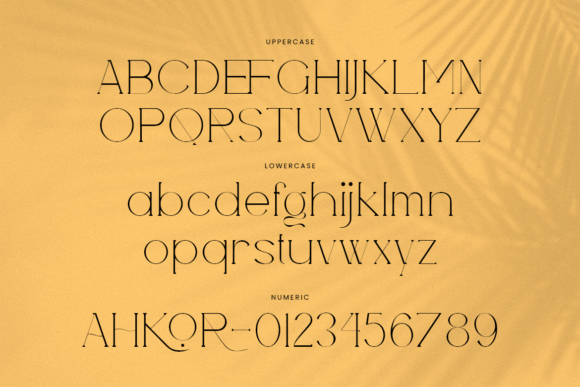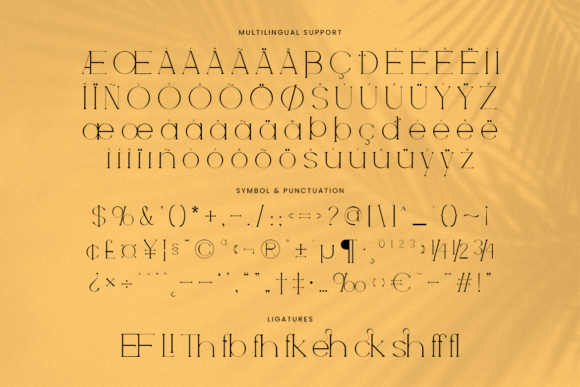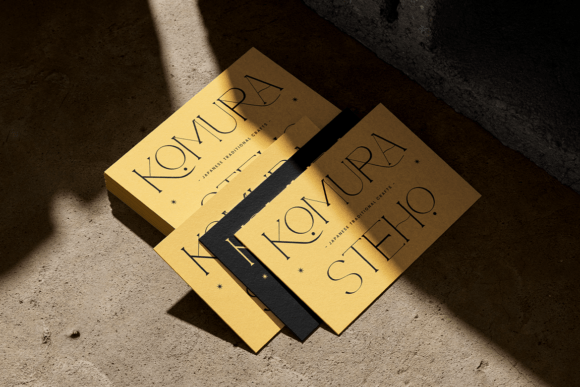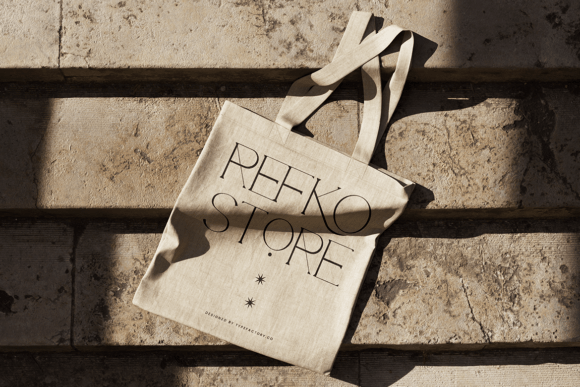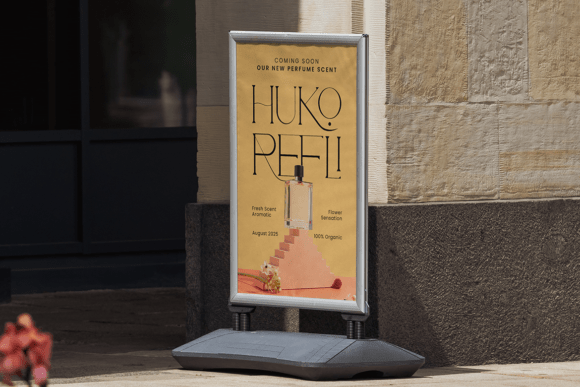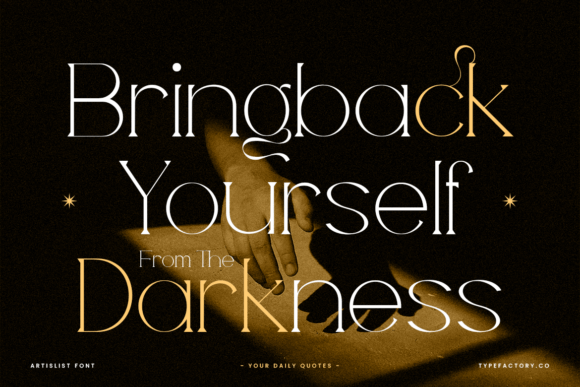
Unveiling the Art of Elegant Typography
As designers, we’ve all been there – staring at a blank page, trying to convey a message or evoke an emotion through the perfect combination of words and type. It’s in these moments of creative tension that the right font can make all the difference. Enter the Artislist Font, a stunningly elegant typeface designed to elevate your typographic compositions and command attention.
This versatile font is built for display use, boasting narrow proportions and refined stroke contrast that make it perfect for editorial layouts, posters, branding systems, and large headlines. Whether you’re working on a fashion editorial, magazine cover, or cultural poster, the Artislist Font is sure to bring your vision to life with its distinctive yet readable presence.
For designers, the Artislist Font is a valuable tool that offers a unique blend of style and functionality. Its condensed structure and delicate details make it a standout choice for large-scale typography, while its multilingual support and ligatures ensure seamless collaboration and consistency across projects.
Key Features of Artislist Font
- Font Family: Artislist is a modern sans-serif font family, suitable for various design applications.
- Unique Characteristics: Artislist features a clean, geometric design with subtle rounded edges, making it suitable for modern and minimalist designs.
- Font Weight and Style: Available in 6 weights (Light, Regular, Medium, Bold, Heavy, Black) and 2 styles (Regular and Italic).
Artislist Font Review
As a designer, I was excited to dive into the world of Artislist Font. Overall, I found it to be a beautiful and elegant typeface that can add a touch of sophistication to any design project. ✨ The font’s unique combination of rounded and geometric shapes creates a visually appealing contrast that can add depth and interest to text.
- ✨ Beautiful and elegant design
- ✨ Wide range of weights and styles available
- ✨ Suitable for a variety of design projects, from branding to editorial
- ⚠️ Limited language support, which may be a problem for designers working on international projects
- ⚠️ Not ideal for use in small text sizes, as the font can become difficult to read
Overall, I would say that Artislist Font is a great choice for designers who want to add a touch of elegance and sophistication to their projects. While it may not be perfect for every use case, its unique design and wide range of weights and styles make it a versatile and valuable addition to any design toolkit.
For the most out of Artislist Font, use it for creative projects that require a unique and elegant touch, such as:
– Magazine or brochure designs
– Branding materials (business cards, letterheads)
– Infographics and data visualizations
– Social media graphics and ads
Alternative Fonts to Artislist
Playfair Display is a luxurious, high-end font perfect for creating a sense of elegance and sophistication. It is ideal for use in invitations, luxury branding, and high-end advertising.
Compared to Artislist Font, Playfair Display is more ornate and luxurious, making it better suited for high-end designs. Artislist Font, on the other hand, has a more vintage and distressed feel.
Great Vibes is a beautiful, elegant script font that is perfect for creating a sense of warmth and personality. It is ideal for use in branding, advertising, and editorial design.
Compared to Artislist Font, Great Vibes is more modern and elegant, making it better suited for designs that require a touch of sophistication. Artislist Font, on the other hand, has a more vintage and distressed feel.
Carolyna Pro is a modern, elegant script font that is perfect for creating a sense of luxury and sophistication. It is ideal for use in branding, advertising, and editorial design.
Compared to Artislist Font, Carolyna Pro is more modern and elegant, making it better suited for designs that require a touch of sophistication. Artislist Font, on the other hand, has a more vintage and distressed feel.